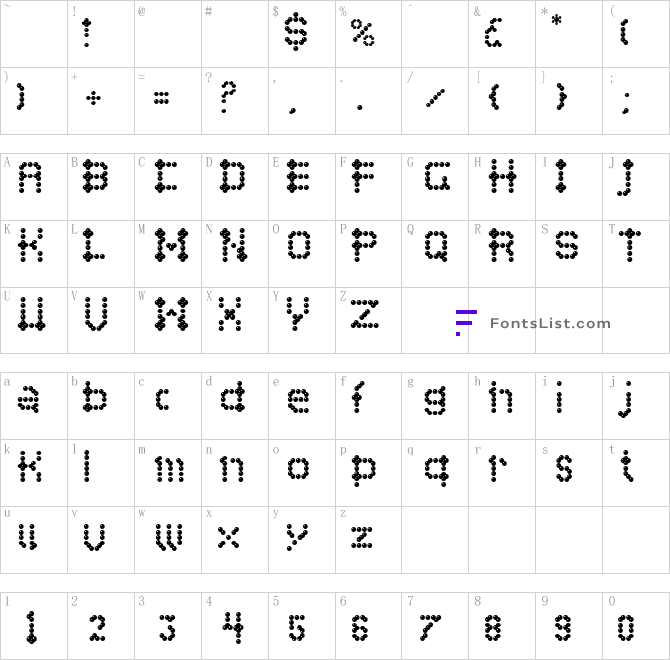
- Font Name:Campcraft
Campcraft-Basic.ttf is a very beautiful artistic font, Campcraft-Basic.ttf is widely used in the design and printing of various books and pictures,Campcraft-Basic.ttf has a strong visual impact,Campcraft-Basic.ttf is a commonly used font in newspapers, magazines and books, and is used in posters, e-commerce Poster design, store design, logo design, font design and other fields.Campcraft-Basic.